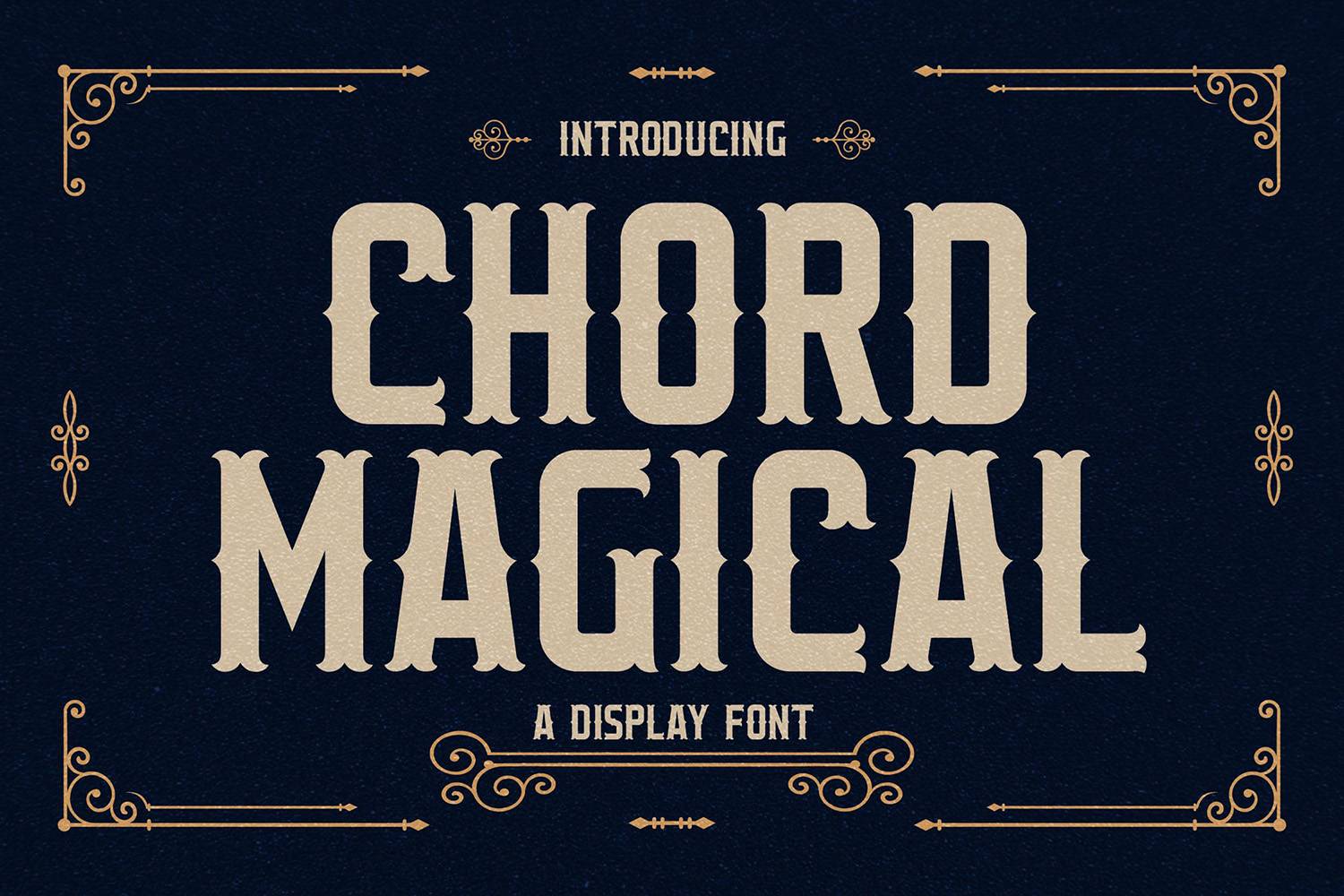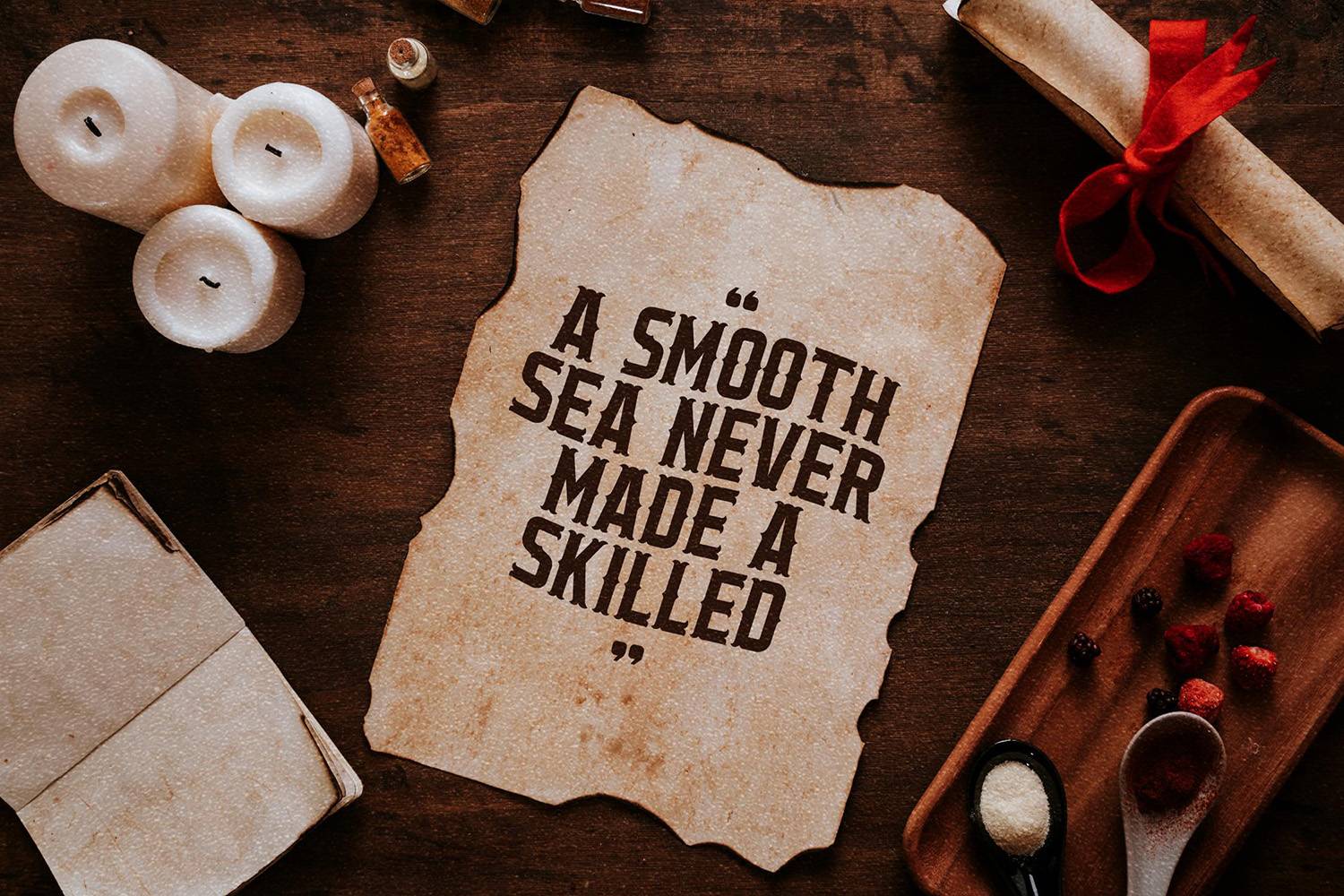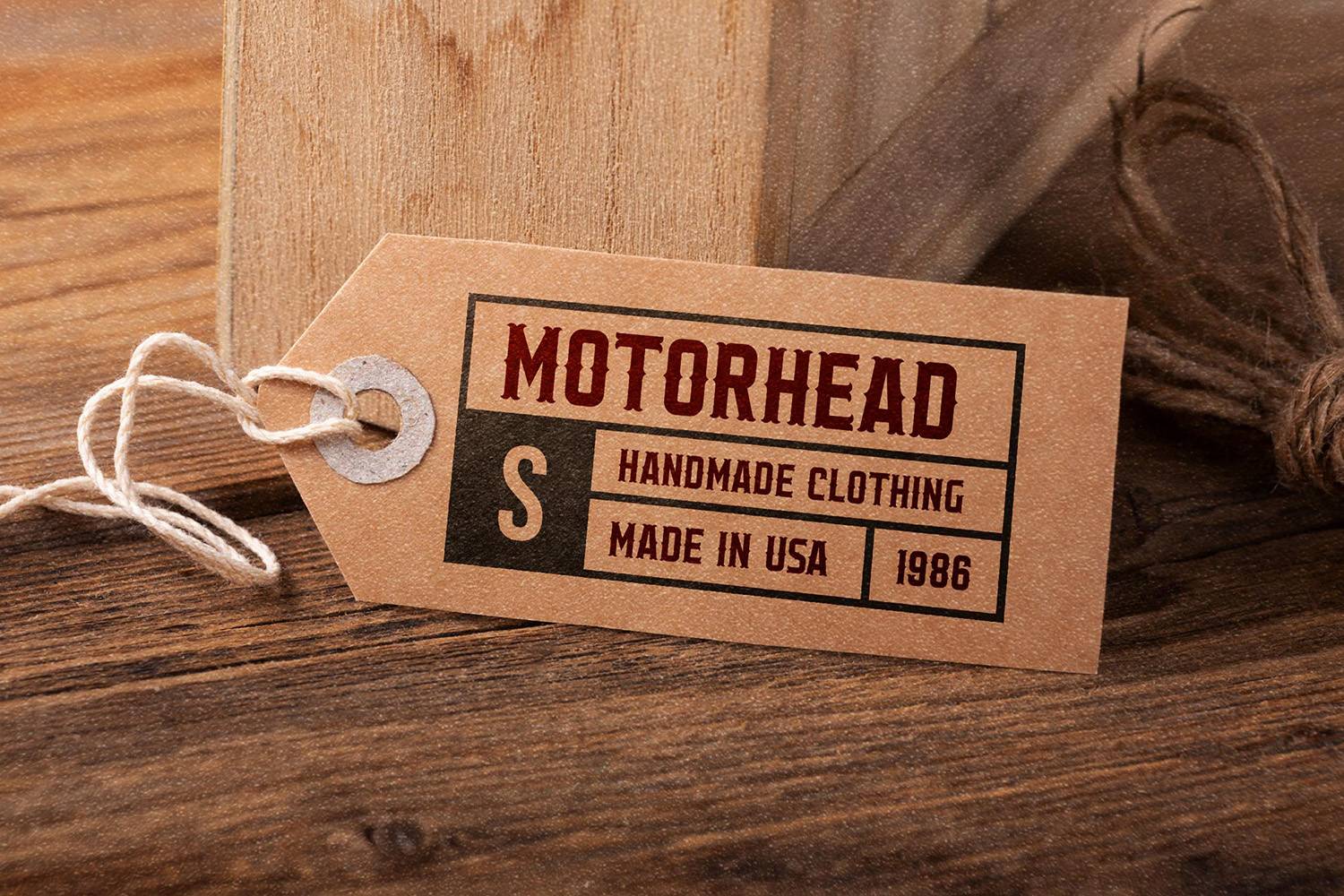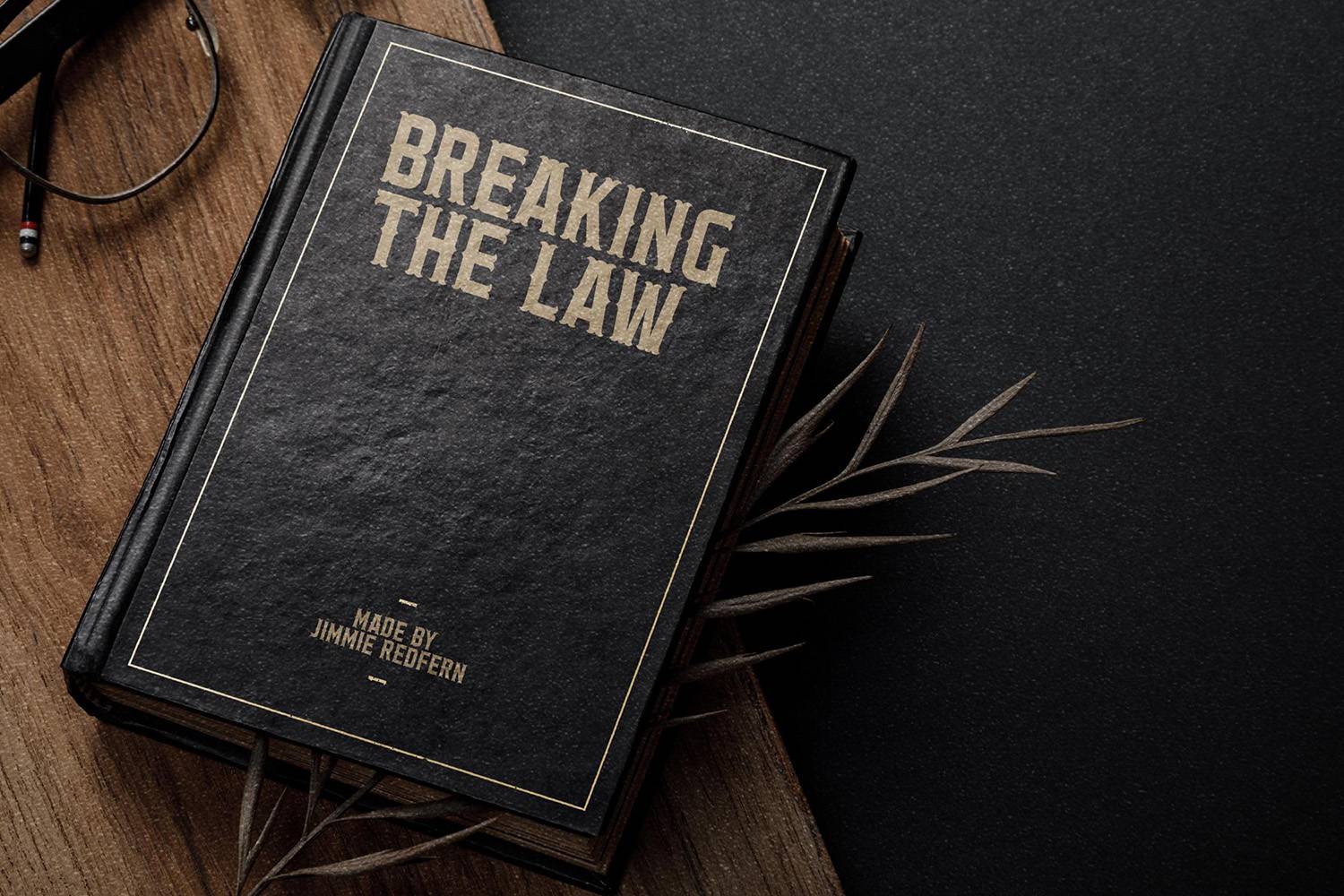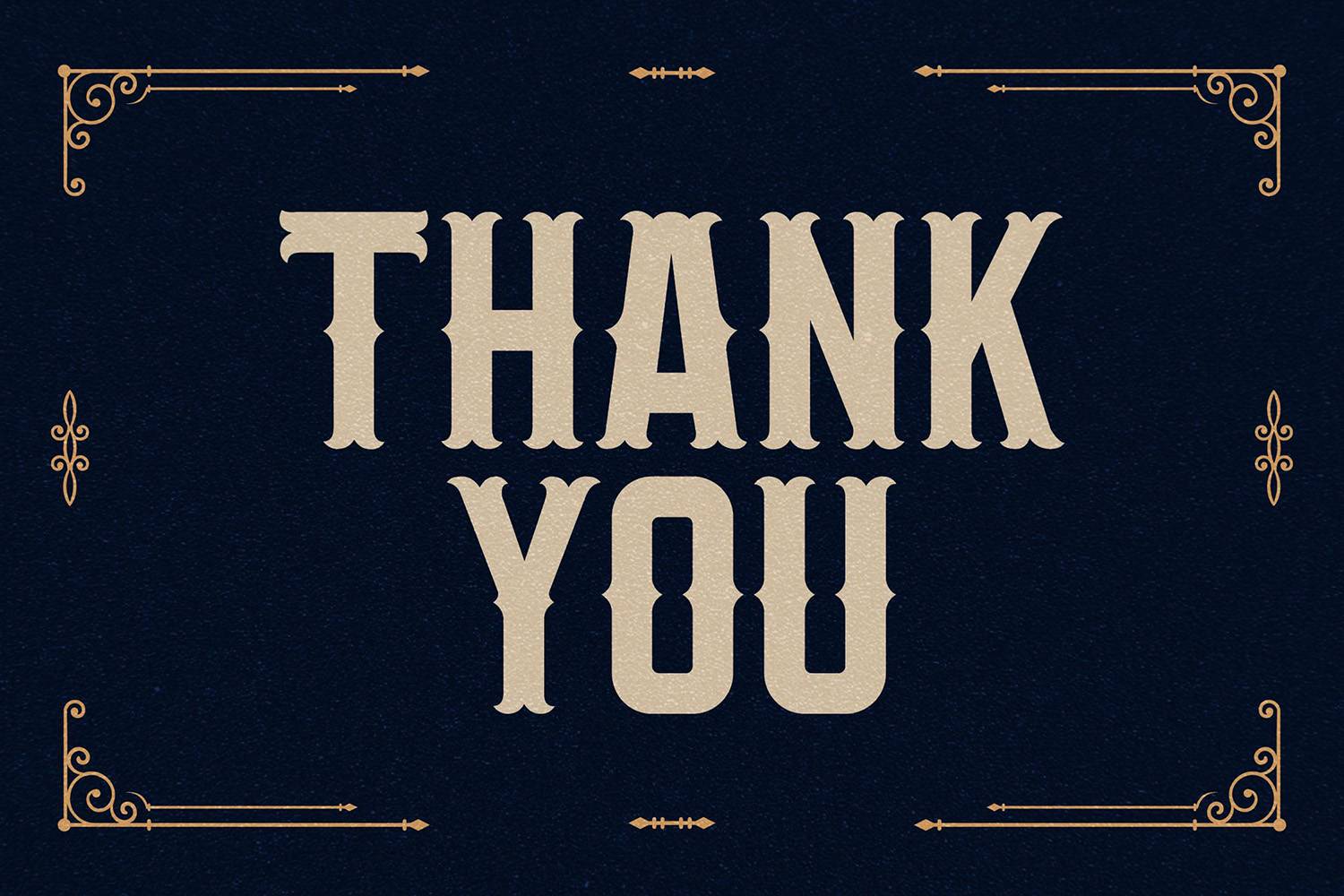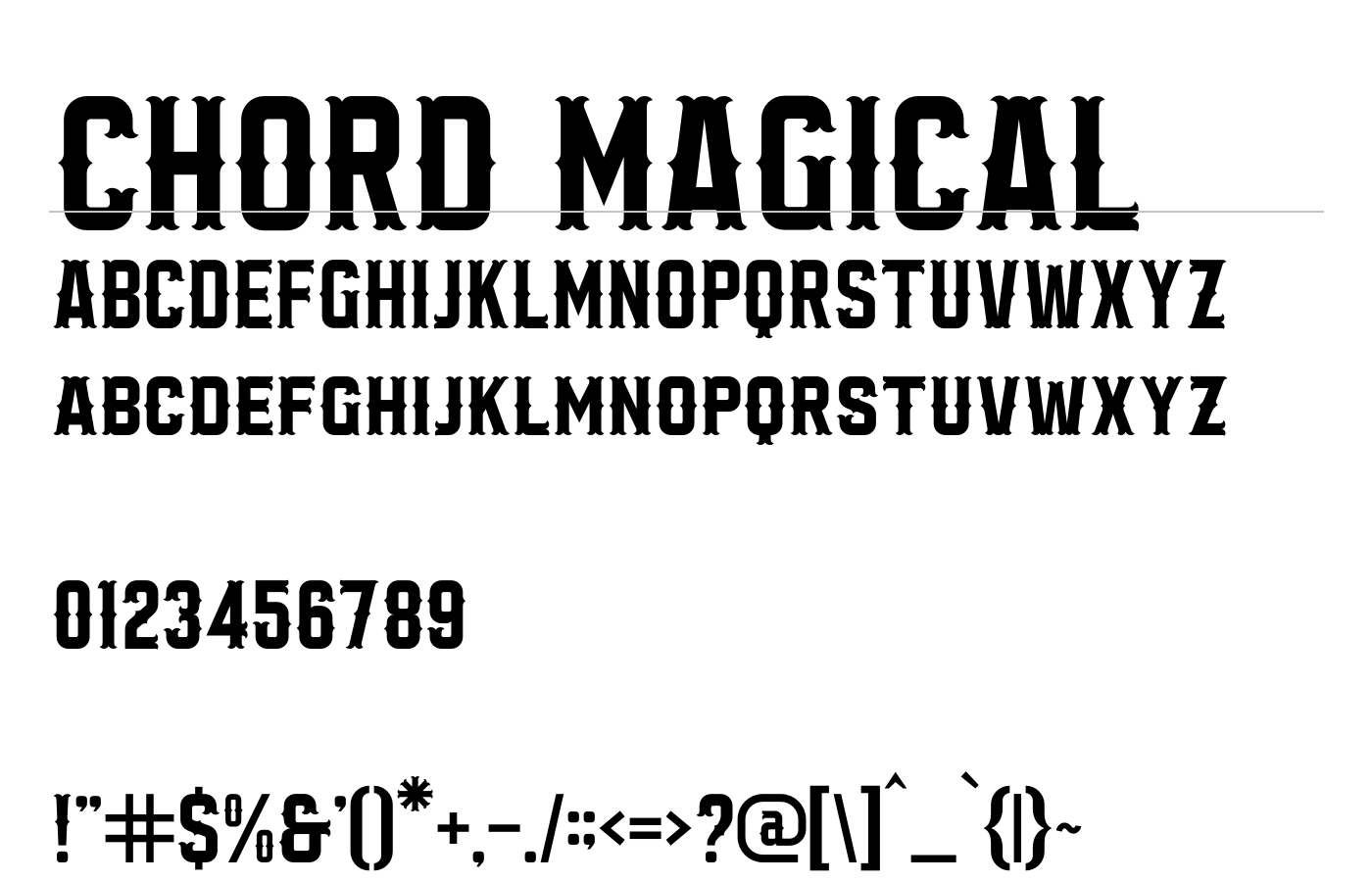
Chord Magical is a bold slab serif font with a vintage, western-inspired style, featuring strong, blocky letterforms and distinctive bracketed serifs that add character and flair. Its sturdy weight and condensed width make it perfect for eye-catching headlines, logos, and branding that seek a rugged yet playful personality. This font works well in projects that want to evoke nostalgia and bold expression, like posters, packaging, or themed editorial designs.
Chord Magical Font
About Chord Magical Font